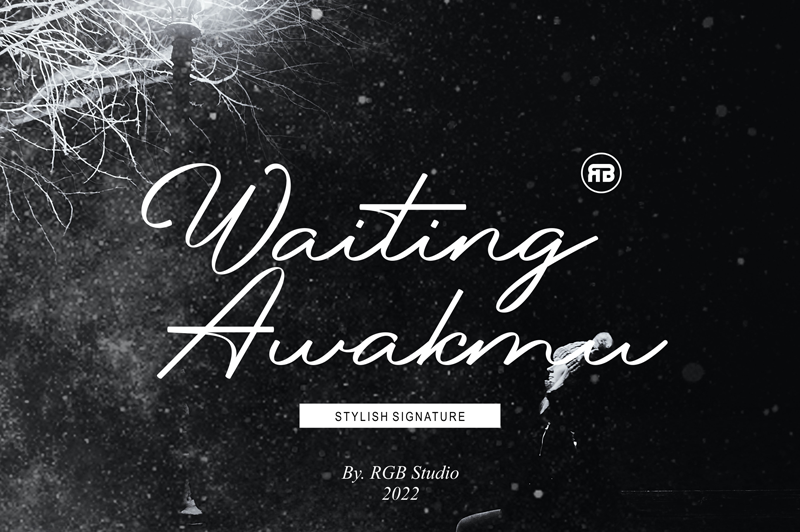
Preview and download Waiting Awakmu Font. Created by RGB Studio in Script Handwritten styles with Free for personal use license.
Waiting Awakmu is a classy handwritten font, This is a truly versatile font combining sophisticated, casual and even fun sides depending on the style you use. This demo font is for PERSONAL USE ONLY! But any donation are very appreciated. Paypal account for donation : https://www.paypal.com/paypalme/payrgbstudio Link to purchase full version and commercial license : https://crmrkt.com/aO4o5e For Extended License or Corporate License Please Reach Us on email : rgbstudio71@gmail.com if you need something! Happy Designing! Thank you. Regards, RGB Studio |